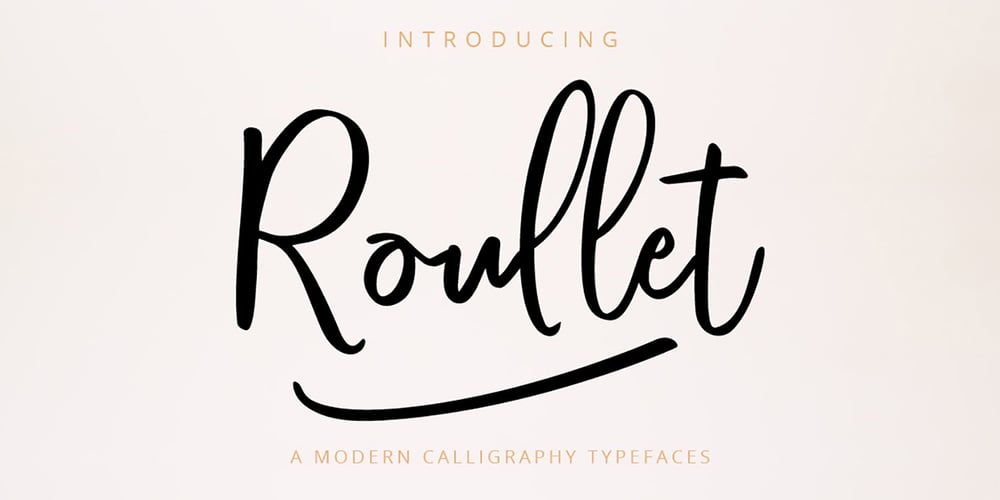
Roulletes Handrawn Font Family was designed by Sarwo Edi and published by Siwox Studios. Roulletes Handrawn contains 1 styles and family package options. Roullet Fonts is a handwriting style. For designers, Instagrammers, bloggers, YouTubers, fashion lovers or somebody who Loves Fresh design.Roullet Fonts are suitable for any modern-design such as ad banner, modern card, invitation, announcement, seasonal design, social media promotion, web design, branding and logo stylist and many more.